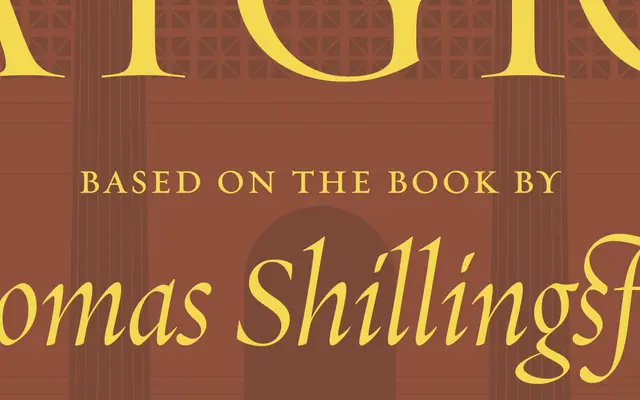
Requiem
Hoefler & Co · Jonathan Hoefler · 1992
A Renaissance humanist serif after Arrighi's 1523 writing manual, with chancery italics, three optical sizes and a full set of ornaments.
A Renaissance serif by Jonathan Hoefler, drawn from an illustration in Ludovico Vicentino degli Arrighi's 1523 writing manual Il Modo de Temperare le Penne. The display roman and small caps take their structure from Arrighi's elegant rendering of the classical alphabet, the lowercase is an invention in the same spirit, and the italic returns to the full-blooded chancery cursive for which Arrighi is most famous. Each style is provided in three optical sizes (Fine, Text and Display) to preserve delicate features at every scale, and Requiem Ornaments includes two decorative cartouche alphabets and a set of printers' flowers. Italic ligature sets and decorative alternates make it suited to book typography, editorial features and identity work in a humanist register.
H&Co describe Requiem as inspired by an illustration in Ludovico Vicentino degli Arrighi's writing manual Il Modo de Temperare le Penne (1523), with a chancery-cursive italic and three optical sizes per style.